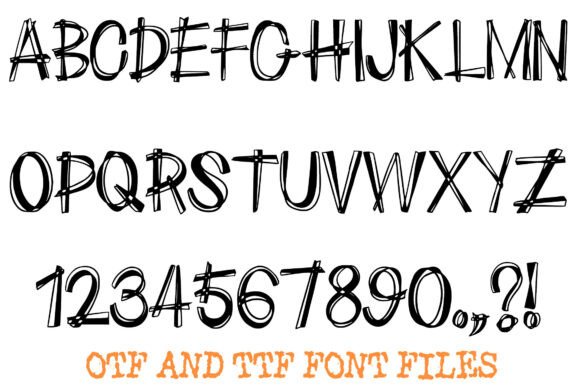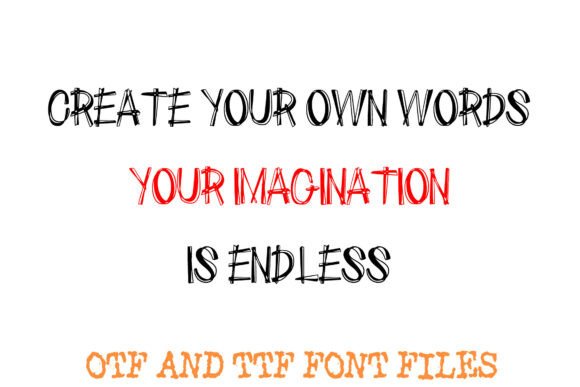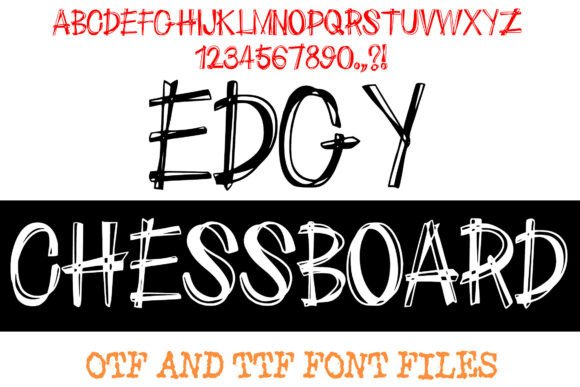
Make Your Designs Stand Out with Edgy Chessboard Font
In the world of typography, few fonts manage to convey a sense of boldness and intellectual rebellion as effectively as the Edgy Chessboard Font. This distinctive typeface is not just a font; it’s a strategic visual statement designed to bring a raw, graphic, and intellectually rebellious flair to any creative project. With its unique blend of bold, hand-drawn outlines and captivating internal grid-like patterns, Edgy Chessboard Font is poised to make your designs stand out in a crowded creative landscape.
The Distinctive Features of Edgy Chessboard Font
Edgy Chessboard Font is characterized by its strong, irregular outline and interior crisscrossed with sharp, intersecting lines, reminiscent of a rough-hewn chessboard or a hastily marked blueprint. This fascinating blend of structured chaos and edgy precision makes it an ideal choice for a variety of design applications. Each character in the font is carefully crafted to convey a sense of boldness and intellectual curiosity, making it perfect for projects that demand a graphic punch.
Ideal Applications for Edgy Chessboard Font
The versatility of Edgy Chessboard Font makes it suitable for a wide range of creative projects. Some of the ideal applications for this font include:
- Game Branding: The bold and edgy nature of the font makes it perfect for game branding, especially for puzzle games, strategy games, or any game that requires a sense of intellectual challenge.
- Escape Room Designs: The font’s unique design, with its grid-like pattern and bold outlines, can add a sense of mystery and challenge to escape room designs.
- Urban Fashion: Edgy Chessboard Font can add a touch of rebelliousness and edginess to urban fashion designs, making it perfect for clothing brands, accessories, or footwear.
- Tech-Themed Graphics: The font’s raw, graphic feel makes it suitable for tech-themed graphics, including software designs, app icons, or website headers.
- Protest Art: The intellectual and rebellious flair of Edgy Chessboard Font makes it a great choice for protest art, flyers, or posters.
- Comic Book Titles: The font’s bold and edgy nature makes it perfect for comic book titles, adding a sense of drama and action to your designs.
Adding a Graphic Punch to Your Designs
Edgy Chessboard Font is more than just a font; it’s a design statement. With its unique blend of bold outlines and internal grid-like patterns, it can add a graphic punch to any design project. Whether you’re designing challenging puzzles, creating impactful headlines, crafting unique merchandise, or adding a touch of edginess to your website, Edgy Chessboard Font is the perfect choice.
Tips for Using Edgy Chessboard Font Effectively
To get the most out of Edgy Chessboard Font, here are some tips for using it effectively:
- Use it sparingly: Due to its bold and edgy nature, it’s best to use Edgy Chessboard Font sparingly to avoid overwhelming your design.
- Pair it with neutral fonts: Pair Edgy Chessboard Font with neutral fonts to create a striking contrast and add visual interest to your design.
- Experiment with colors: Don’t be afraid to experiment with different colors to find the perfect combination that brings out the unique features of the font.
- Use it for headlines: Edgy Chessboard Font is perfect for headlines, adding a touch of drama and attention-grabbing flair to your design.
Edgy Chessboard Font is a unique and powerful design tool that can add a touch of intellectual rebellion and edginess to any creative project. With its bold, hand-drawn outlines and captivating internal grid-like patterns, it’s perfect for designers and crafters looking to make a statement. Whether you’re designing game branding, escape room designs, urban fashion, or tech-themed graphics, Edgy Chessboard Font is the perfect choice. So why settle for ordinary fonts when you can make a statement with Edgy Chessboard Font?